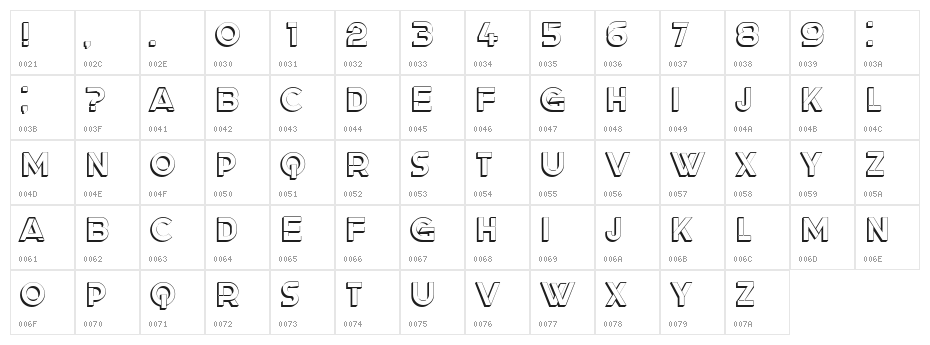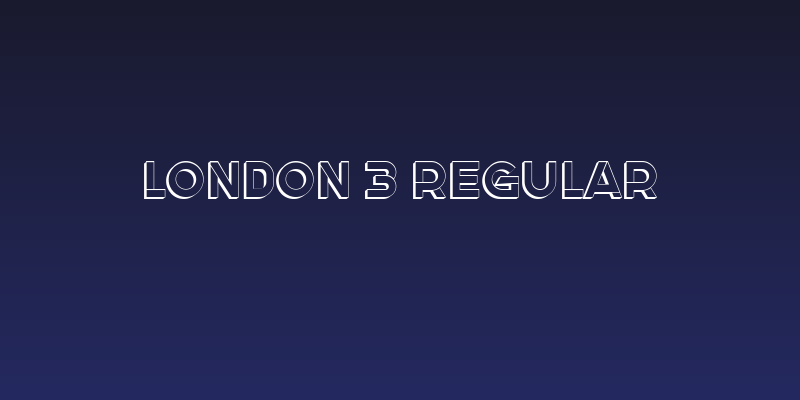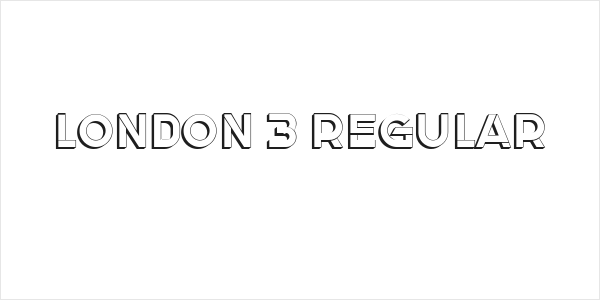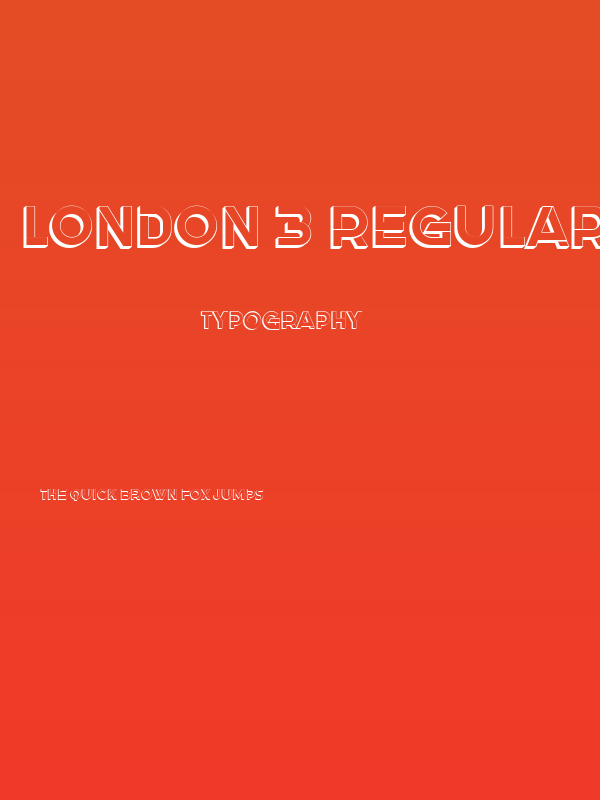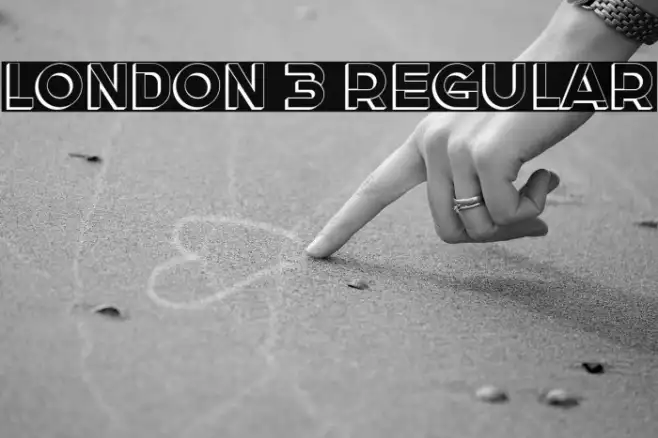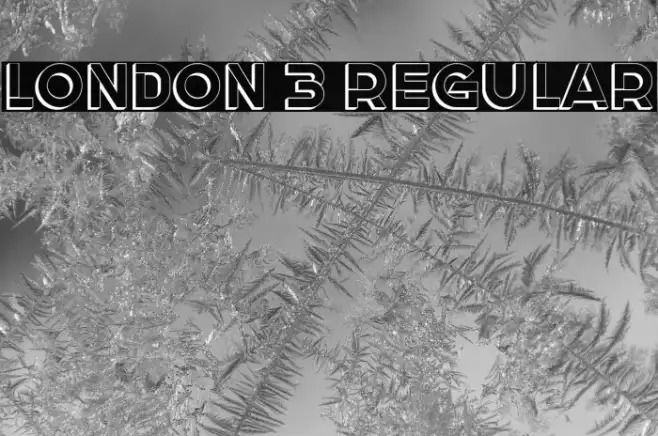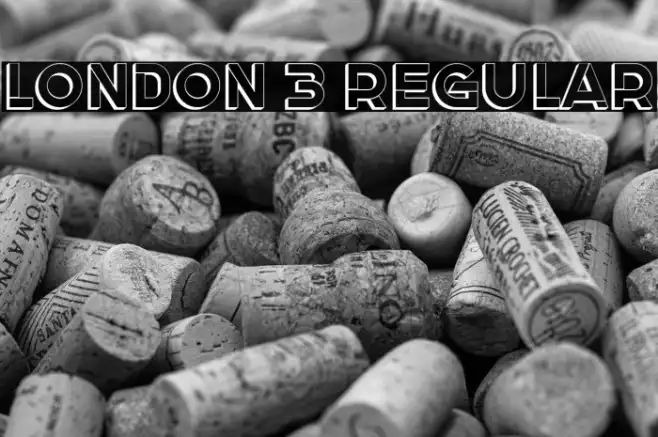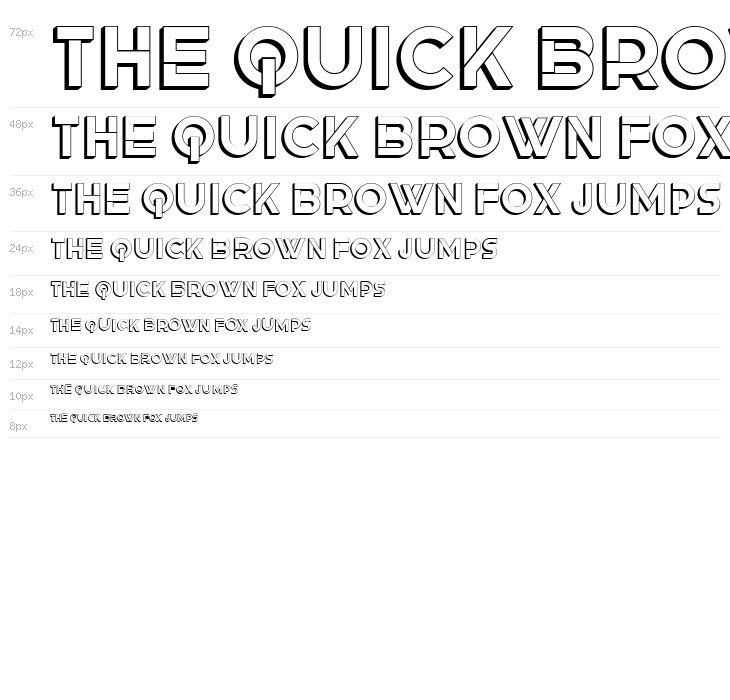
London 3 Regular Font
London 3 Regular Description
This font features a bold, geometric design with a three-dimensional effect, created by a shadow that gives depth to each character. The uppercase letters are uniform in height, with clean, straight lines and sharp angles, contributing to a modern and structured appearance. The numerals and punctuation marks follow the same design principles, ensuring consistency across all characters. The font's style is both eye-catching and legible, making it suitable for various design applications where a strong visual impact is desired.
| Proposed Projects | Ideal for branding, posters, headlines, and any design project requiring a striking and modern typeface. |